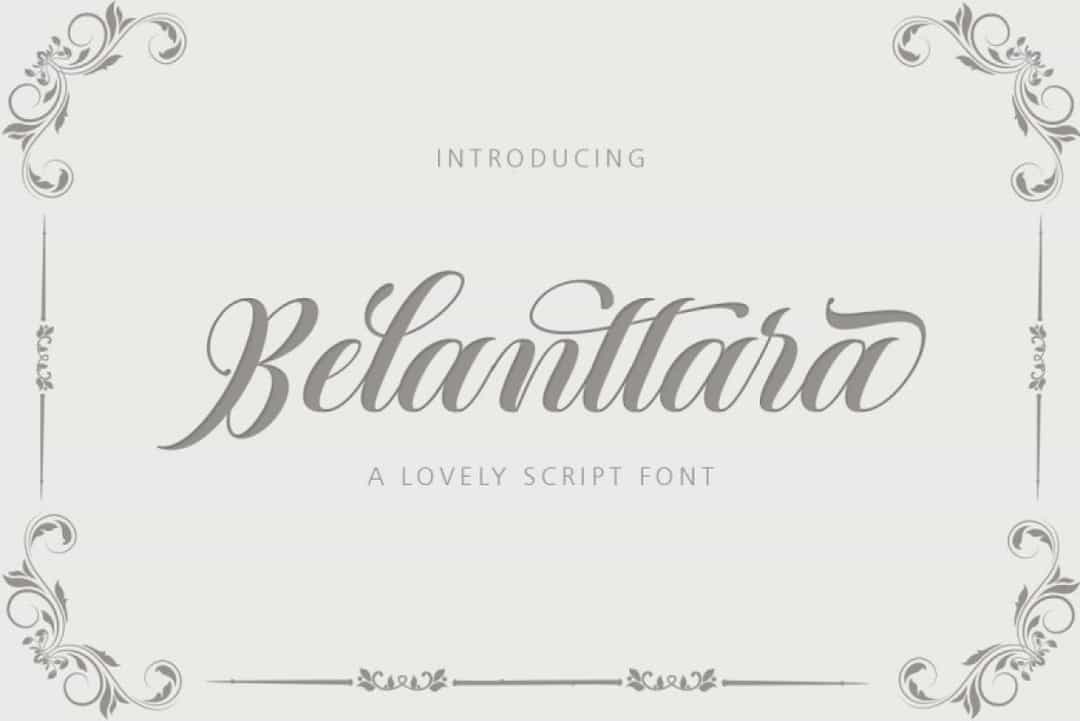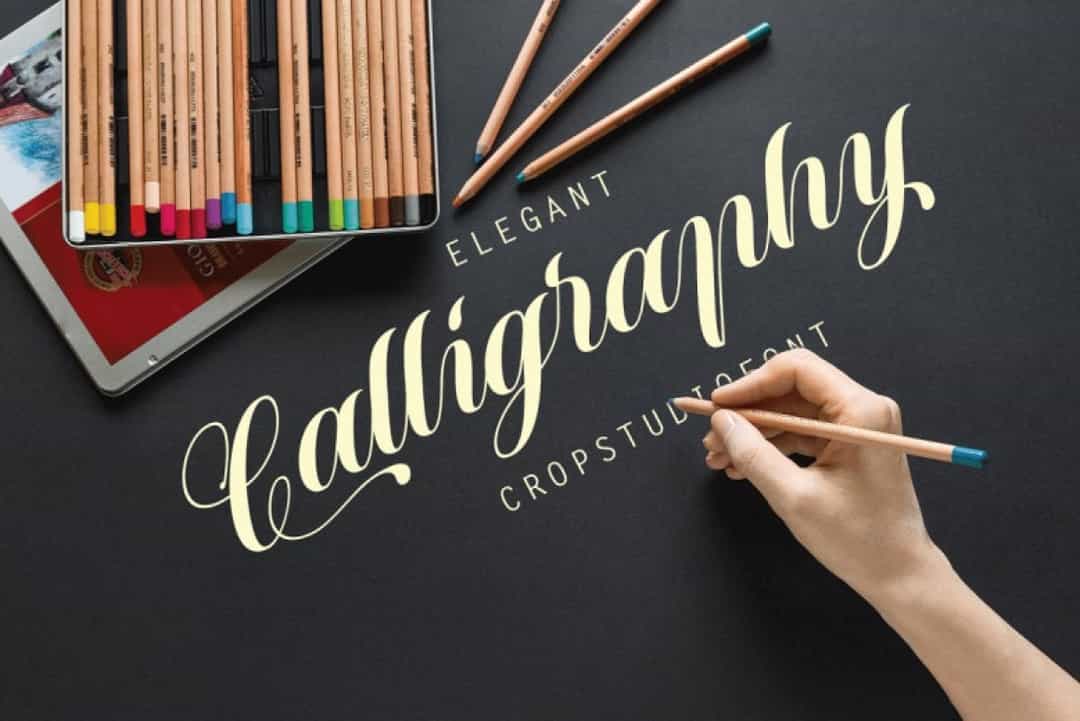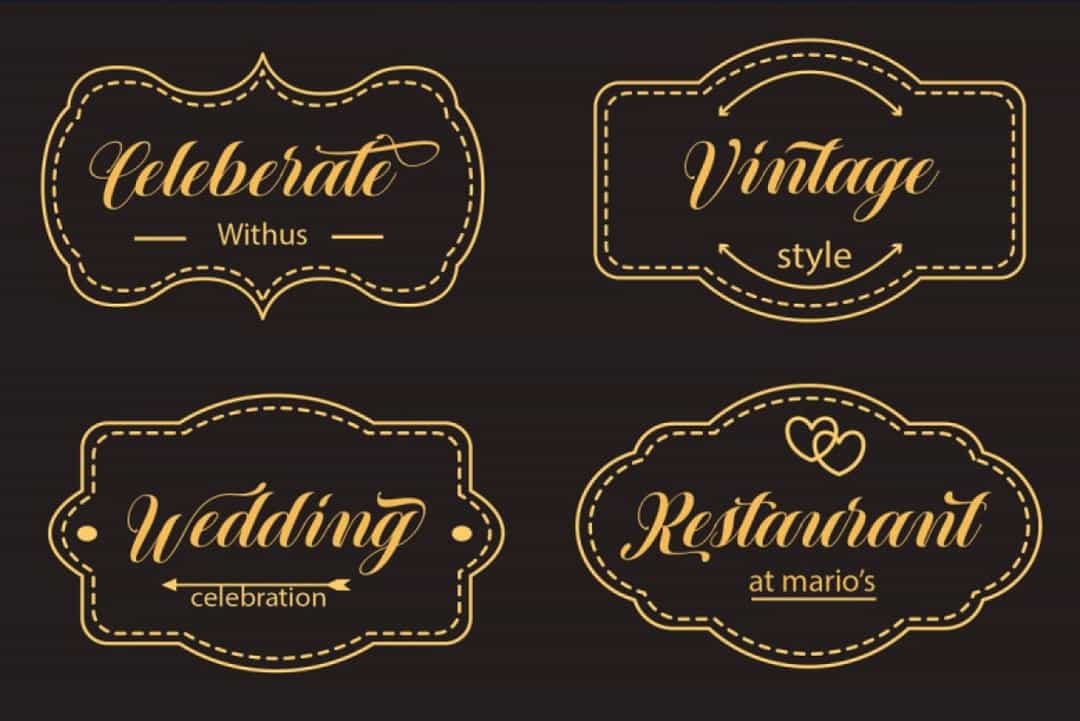
Belanttara Font is charming and luxurious – ideal for wedding invitations, thank-you cards and quotes, greeting cards and business cards, logos or any design needing an elegant handwritten touch.